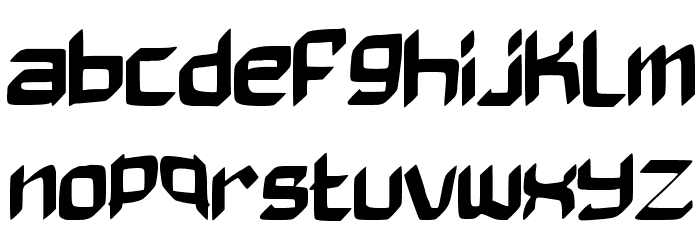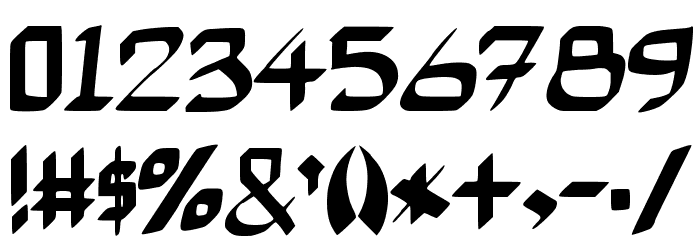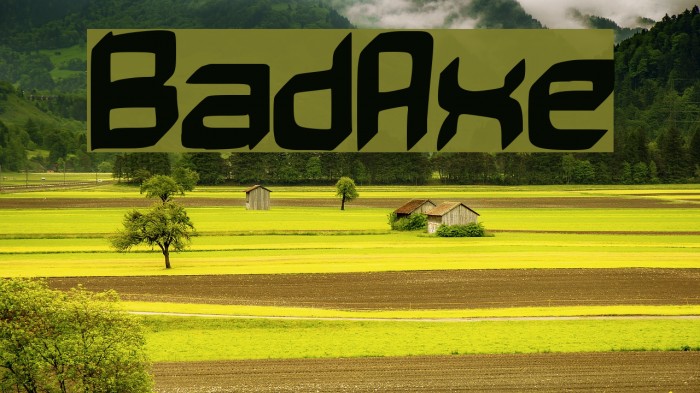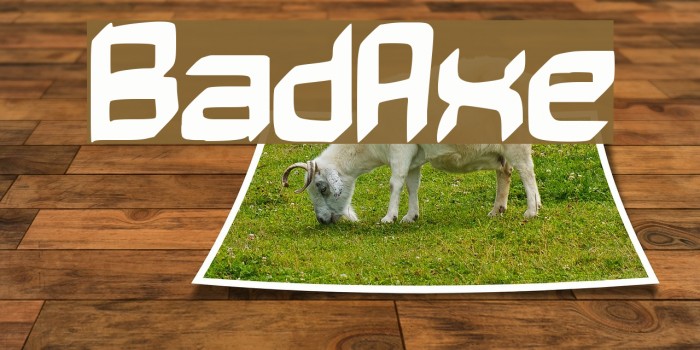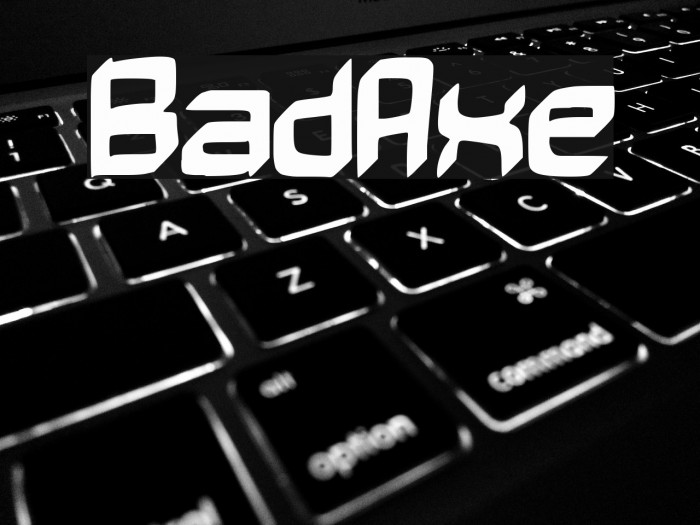
BadAxe Font
This font features a bold and aggressive design with sharp, angular edges and a futuristic aesthetic. The characters are uniquely stylized, giving them a dynamic and edgy appearance. The uppercase and lowercase letters maintain a consistent style, with a strong emphasis on geometric shapes and sharp angles. Numbers and special characters follow the same design principles, ensuring a cohesive look across all elements. The font's distinctive style makes it stand out, making it suitable for projects that require a bold and impactful visual statement.
A bold, angular font with a futuristic and edgy design.
- Proposed Projects: Ideal for video game titles, sci-fi movie posters, edgy branding, and merchandise designs.
- Overall Style: Futuristic